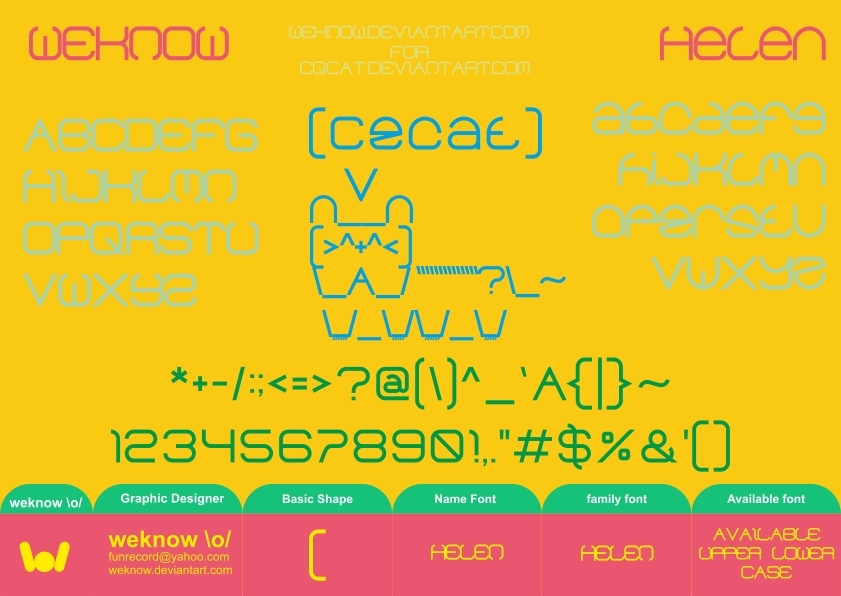
Helen is a free futuristic display font with wide, monoline letters and tightly fitted geometric forms. Most curves spread into broad, rounded rectangles.
For audiences drawn to electronic music, gaming, and speculative technology, its sleek machine-age styling suits event posters, game graphics, and record artwork. In editorial design, the unusually wide silhouettes can turn a magazine masthead or science-fiction feature opener into part of the control-panel imagery rather than neutral text.